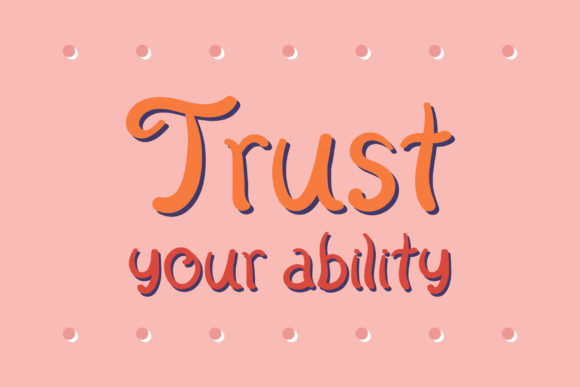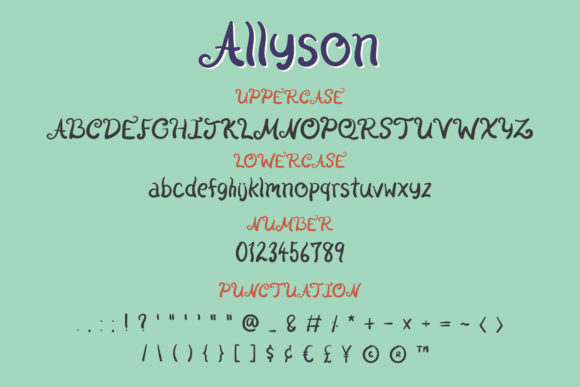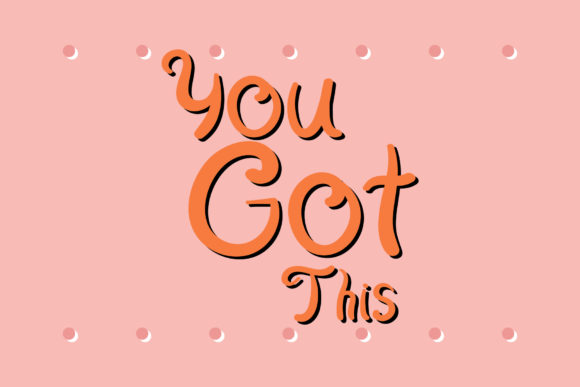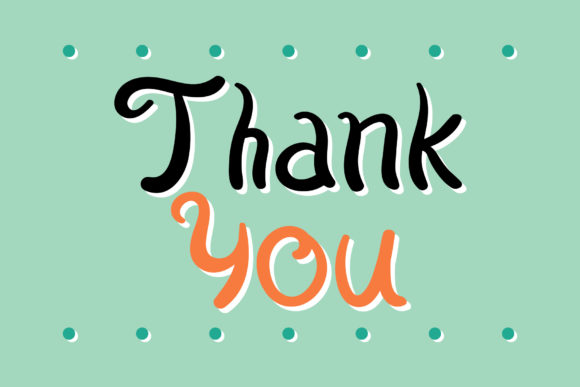
Discover the Elegance of Allyson Font: Elevate Your Designs with a Touch of Sophistication
Are you on the hunt for a font that exudes elegance, sophistication, and a dash of modern flair? Look no further than the Allyson font, a stunning handwritten typeface that is sure to capture your heart. Designed with meticulous care, Allyson seamlessly blends classic calligraphic elements with a contemporary twist, making it the perfect addition to your design arsenal.
The Story Behind Allyson Font
Allyson is more than just a font; it’s a masterpiece crafted to bring a touch of luxury to your projects. Its creation was inspired by the art of calligraphy, with each letter meticulously designed to reflect a sense of fluidity and grace. The result is a font that feels both timeless and refreshingly modern, capable of elevating any design from ordinary to extraordinary.
Key Features of Allyson Font
- Exquisite Handwritten Style: Allyson boasts a beautifully handwritten appearance, perfect for projects that demand a personal touch.
- Classy Calligraphic Influences: The font retains the elegance of traditional calligraphy, making it ideal for high-end designs.
- Contemporary and Fresh: Despite its classic roots, Allyson feels modern and versatile, suitable for a wide range of applications.
- Easy to Read: With its clear and flowing script, Allyson ensures that your message is conveyed with style and readability.
Why Choose Allyson Font?
Choosing Allyson for your design projects comes with numerous benefits. Its unique blend of classic and modern elements allows it to stand out in a sea of more generic fonts. Whether you’re working on a branding project, crafting beautiful invitations, or designing captivating advertisements, Allyson can help you achieve your vision with style.
Allyson is not just a font; it’s a tool for creative expression. Designers will appreciate its versatility and the professional touch it brings to any project. Crafters, on the other hand, will love how Allyson can add a personal and handmade feel to their creations, from DIY tutorials to handmade product labels.
How to Use Allyson Font Effectively
To make the most of Allyson, consider the following tips:
- Pair it with Neutrals: Combine Allyson with simpler fonts or neutral backgrounds to let its elegance shine.
- Experiment with Sizes: Play with different sizes to emphasize certain words or phrases, adding depth to your design.
- Color Matters: While Allyson looks stunning in black, don’t be afraid to experiment with colors that match your brand or project’s aesthetic.
Allyson font is a true gem in the world of typography, offering a unique blend of elegance, versatility, and modern appeal. Whether you’re a designer looking to elevate your projects or a crafter seeking to add a touch of sophistication to your creations, Allyson is sure to exceed your expectations. With its exquisite handwritten style and classy calligraphic influences, Allyson is not just a font but a statement piece that can transform your designs into works of art.
So, fall in love with Allyson and bring your projects to the highest levels of creativity and sophistication. Experience the difference that a beautifully crafted font can make in your design journey.